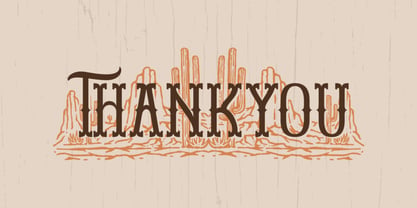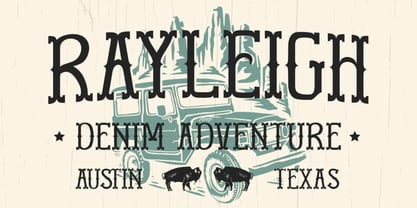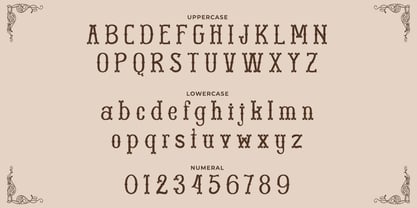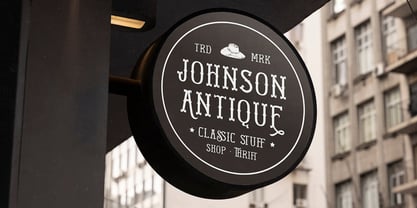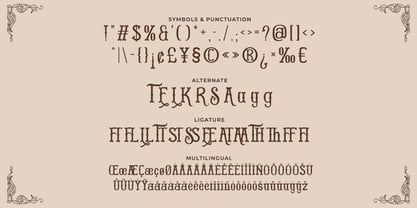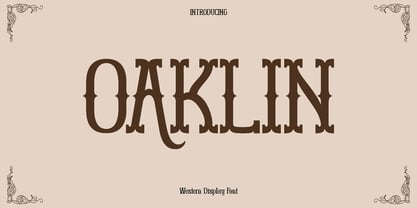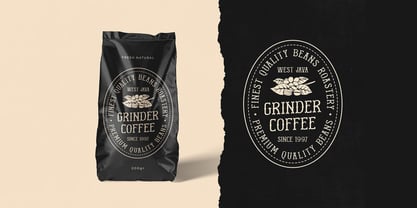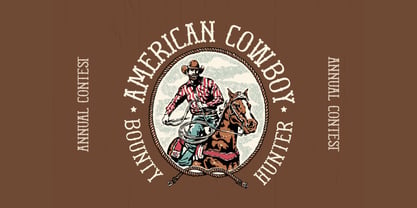
Oaklyn
The Oaklyn Font Family was designed by Olivia Love and published by Only Fonts. Oaklyn contains 1 styles. More about this family
Oaklyn is a rugged Western display font that channels the grit of frontier signage and the warmth of hand‑painted lettering. Thick strokes, sturdy serifs, and weathered rhythm give every word the look of a saloon door or ranch brand, making messages feel bold, direct, and adventurous. Set it large to summon trail‑dust energy for campaigns, event titles, and packaging that need unmistakable Western character. Oaklyn turns simple phrases into storytelling marks with charm and conviction. Where it shines: - Branding and logos for ranches, BBQ and smokehouses, country apparel, rodeo clubs, and outdoor outfitters. - Posters, tickets, and banners for fairs, rodeos, music festivals, and frontier‑themed events. - Packaging, labels, and badges for craft beverages, sauces, leather goods, and handmade wares seeking authentic rustic appeal. - Social graphics and editorial spreads that need a confident headline voice with Old West personality. Standout features: - Uppercase and lowercase that combine cleanly for stacked wordmarks and sign‑style layouts. - Symbols and punctuation designed to match the rugged texture for cohesive headlines and badge lockups. - Lining numerals for dates, sections, and numbering on posters and menus. - Handy ligatures that smooth tricky pairs and enhance the sign‑painted flow. - Alternates that add variety from refined slab to more rustic cuts for a custom look. - Multilingual support so a Western voice carries across markets and touchpoints. Choose Oaklyn when the brief calls for courage, craft, and a dust‑trail of authenticity. It brings Western charm to saloon logos, cowboy art, rodeo materials, rustic posters, event banners, and everyday content that deserves the bold spirit of the Wild West.